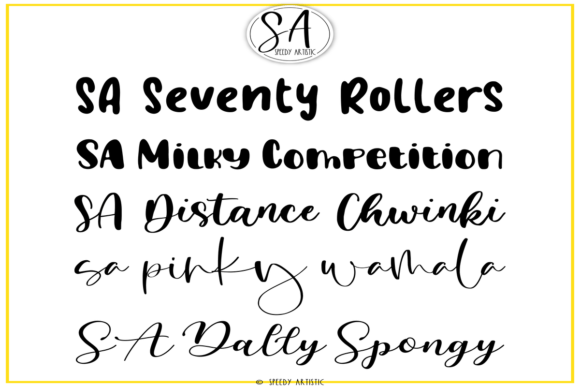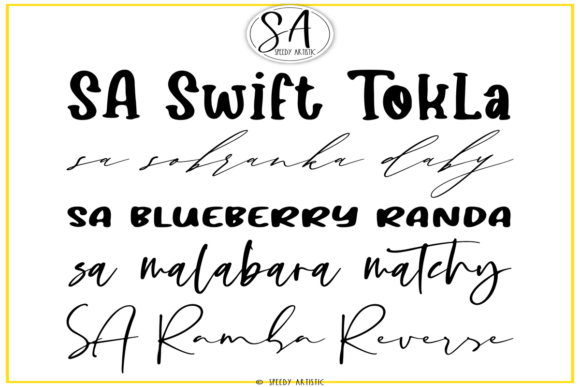
Introduction to Script and Handwritten Bundle 9 Font
Have you ever stared at a blank page, struggling to find the perfect font to bring your creative project to life? You know the feeling – the blank page staring back at you, a seemingly endless sea of options, and a deadline looming in the distance. But what if you had a secret arsenal of high-quality fonts at your fingertips, ready to elevate your design and make it truly unforgettable?
Enter the Script and Handwritten Bundle 9 Font – a treasure trove of 10 stunning True-Type script fonts, perfect for designers who crave a little extra flair in their creative endeavors. With this versatile bundle, you’ll have the freedom to explore new design possibilities, experiment with different styles, and bring your most ambitious projects to life with confidence.
- Unique Script and Handwritten Font Styles: This bundle includes 9 high-quality fonts with distinctive script and handwritten styles, perfect for adding a personal touch to your creative project.
- High-Quality Design Resource: Each font is carefully crafted with attention to detail, ensuring a professional and polished look for your design.
- Perfect for Digital and Print Projects: The Script and Handwritten Bundle 9 Font is suitable for a wide range of creative projects, including digital designs, print materials, and more.
Honest Review: Script and Handwritten Bundle 9 Font
As a designer, I’ve been on the hunt for the perfect script font to elevate my creative projects. Recently, I stumbled upon the Script and Handwritten Bundle 9 Font, and I must say it’s been a game-changer.
Here are some of the things that work well: ✨ High-quality font files that are crisp and clear, ✨ A wide range of styles to suit various design needs, and ✨ A transparent background option that makes it easy to work with.
- Perfect for creative projects that require a touch of elegance
However, there are a few limitations: ⚠️ Limited compatibility with older software versions, ⚠️ Some fonts may require additional customization to achieve the desired effect.
Overall, I’m thoroughly impressed with the Script and Handwritten Bundle 9 Font. It’s a must-have design resource for any creative project that requires a high level of sophistication. While it may have a few limitations, the benefits far outweigh the drawbacks. I’d highly recommend it to fellow designers looking to take their projects to the next level.
The Script and Handwritten Bundle 9 Font is ideal for creative projects that require a high-quality, handwritten look. Use it for invitations, posters, social media graphics, and more. You can also use it to add a personal touch to your presentations and documents.
To get the most out of the Script and Handwritten Bundle 9 Font, use it in conjunction with a transparent background. This will allow the font to stand out and add a touch of elegance to your design project.